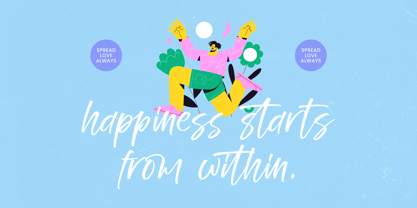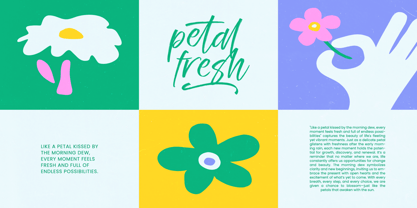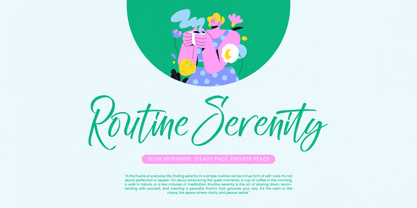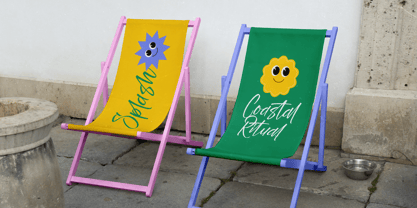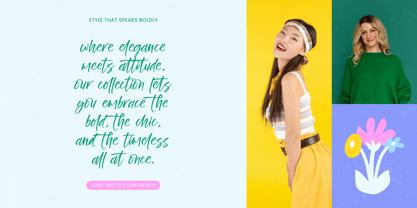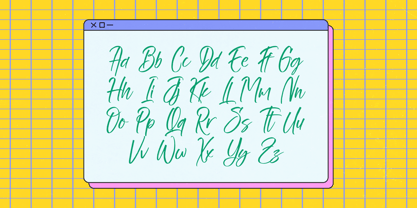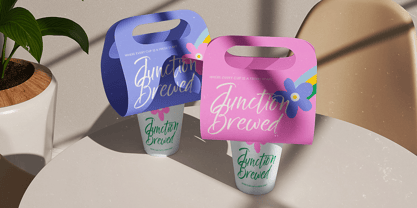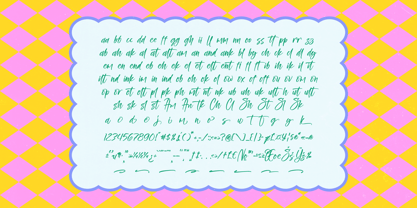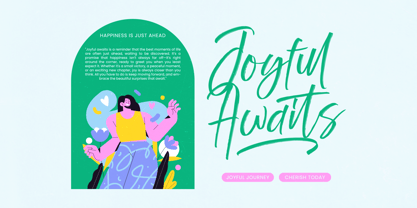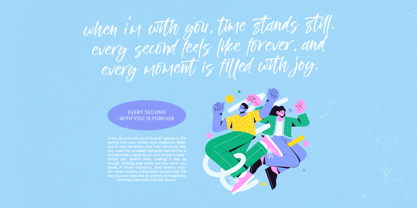
Still Gentle
La familia tipográfica Still Gentle fue diseñada por Heru Utama Putra y publicada por Stylishtype Studio. Still Gentle contiene 2 estilos y opciones de paquete familiar. Más información sobre esta familia
Still Gentle is a modern brush script font crafted with expressive strokes and a soft handwritten flow, designed to bring warmth, personality, and energy to any creative project. With 455 glyphs, 101 ligatures, 16 alternates, and 8 swashes, this font offers flexible customization for branding, social media posts, packaging, posters, quotes, lifestyle graphics, playful illustrations, and anything that needs a friendly yet dynamic brush aesthetic. Its textured hand-drawn feel adds authenticity and movement, making Still Gentle a perfect choice for designers who want a vibrant, optimistic, and modern handwritten look.